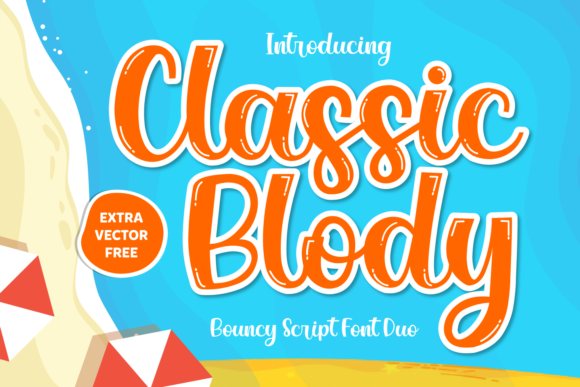
Introducing Classic Blody: The Delicate and Elegant Handwritten Font
Are you a designer or crafter looking for a font that exudes elegance and sophistication? Look no further than Classic Blody, a delicate and elegant handwritten font that is sure to capture your heart. With its distinct and well-rounded letters, Classic Blody is a masterpiece that will elevate your designs to the next level.
The Characteristics of Classic Blody
Classic Blody is a unique and versatile font that boasts a range of characteristics that make it perfect for a variety of design projects. Its delicate and elegant style is reminiscent of traditional handwritten fonts, yet it has a modern twist that sets it apart from more traditional fonts. The letters in Classic Blody are well-rounded and distinctive, with a subtle flair at the terminals that adds to their elegance.
The Benefits of Using Classic Blody
So why should you choose Classic Blody for your design projects? For starters, its versatility is unmatched. Whether you’re creating a wedding invitation, a logo, or a social media graphic, Classic Blody is the perfect choice. Its elegant style is suitable for a wide range of industries, from fashion and beauty to food and drink. Additionally, Classic Blody is incredibly easy to read, making it perfect for body text as well as headlines.
What Makes Classic Blody So Special?
So what sets Classic Blody apart from other fonts on the market? For one, its unique lettering style is unlike anything you’ve seen before. The font’s creator has carefully crafted each letter to ensure that they are not only beautiful but also highly legible. Additionally, Classic Blody comes with a range of features that make it easy to use and customize, including multiple weights, styles, and ligatures.
Inspiration for Your Designs
Still not sure how to use Classic Blody in your designs? Here are a few ideas to get you started:
- Create a beautiful wedding invitation or save-the-date card
- Design a logo or branding materials for a fashion or beauty brand
- Develop a social media graphic or ad for a food or drink company
- Make a stunning poster or flyer for a event or promotion
In conclusion, Classic Blody is a delicate and elegant handwritten font that is sure to become a favorite among designers and crafters. Its unique lettering style, versatility, and ease of use make it the perfect choice for a wide range of design projects. Whether you’re creating a wedding invitation, a logo, or a social media graphic, Classic Blody is the perfect font to help you create spectacular designs.
Get Ready to Fall in Love with Classic Blody